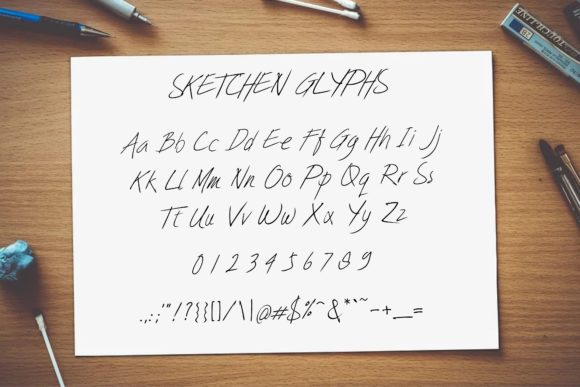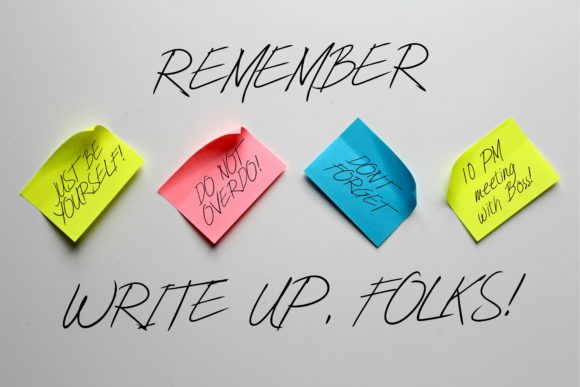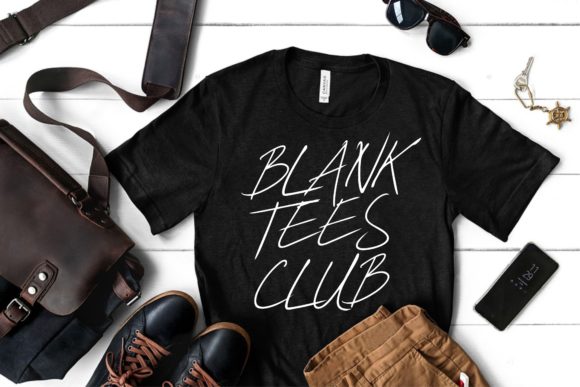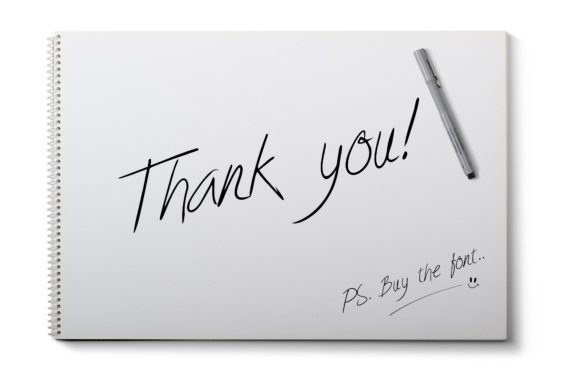
Sketchen Font
About Sketchen Font
Sketchen is a distinct and relaxed handwritten font. Its simple and down to earth style makes this font adept to a wide variety of designs. Add it to your creative ideas and notice how it elevates them to the highest levels!